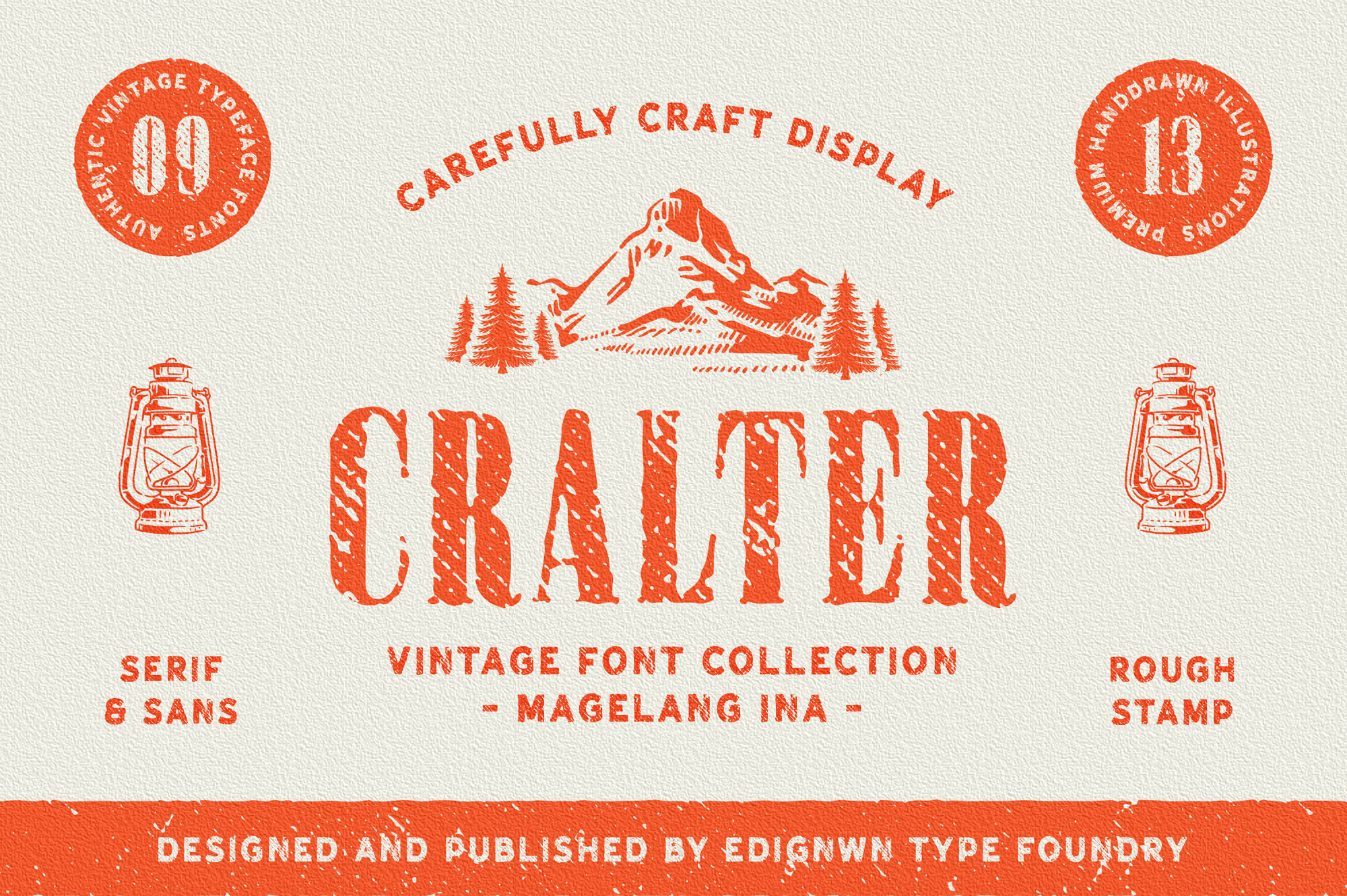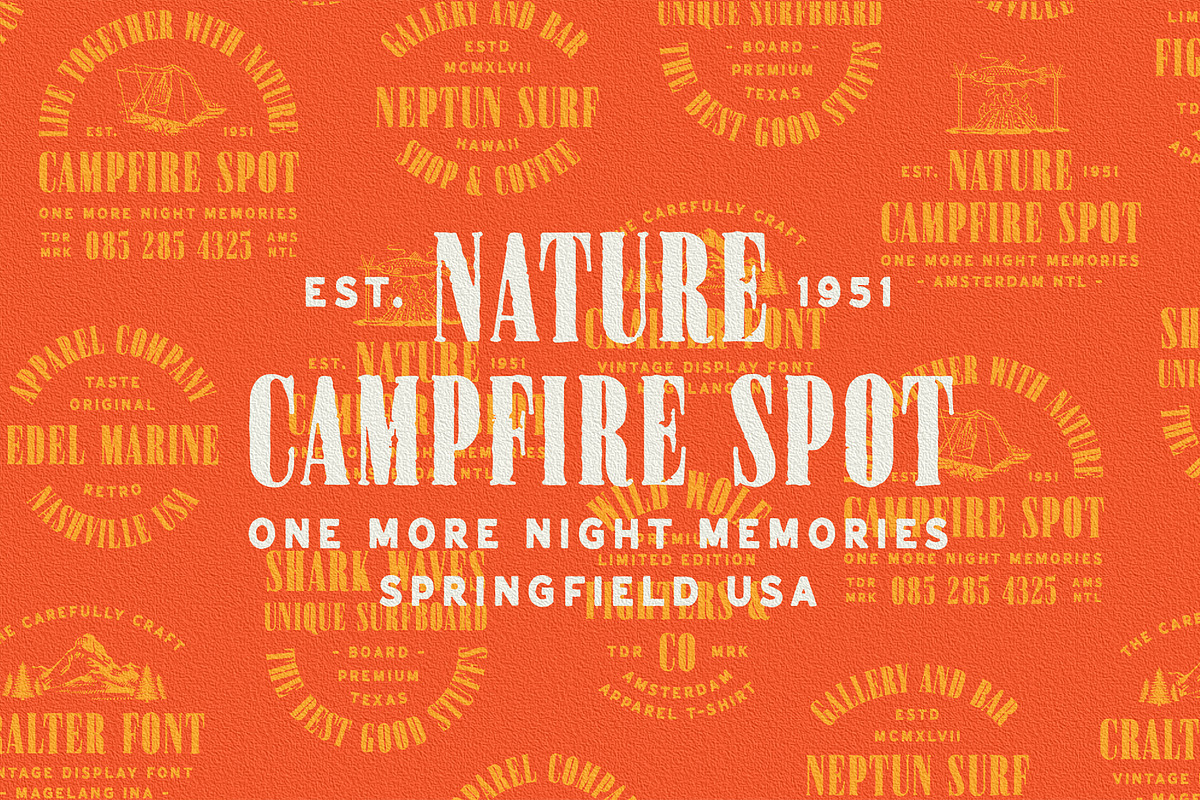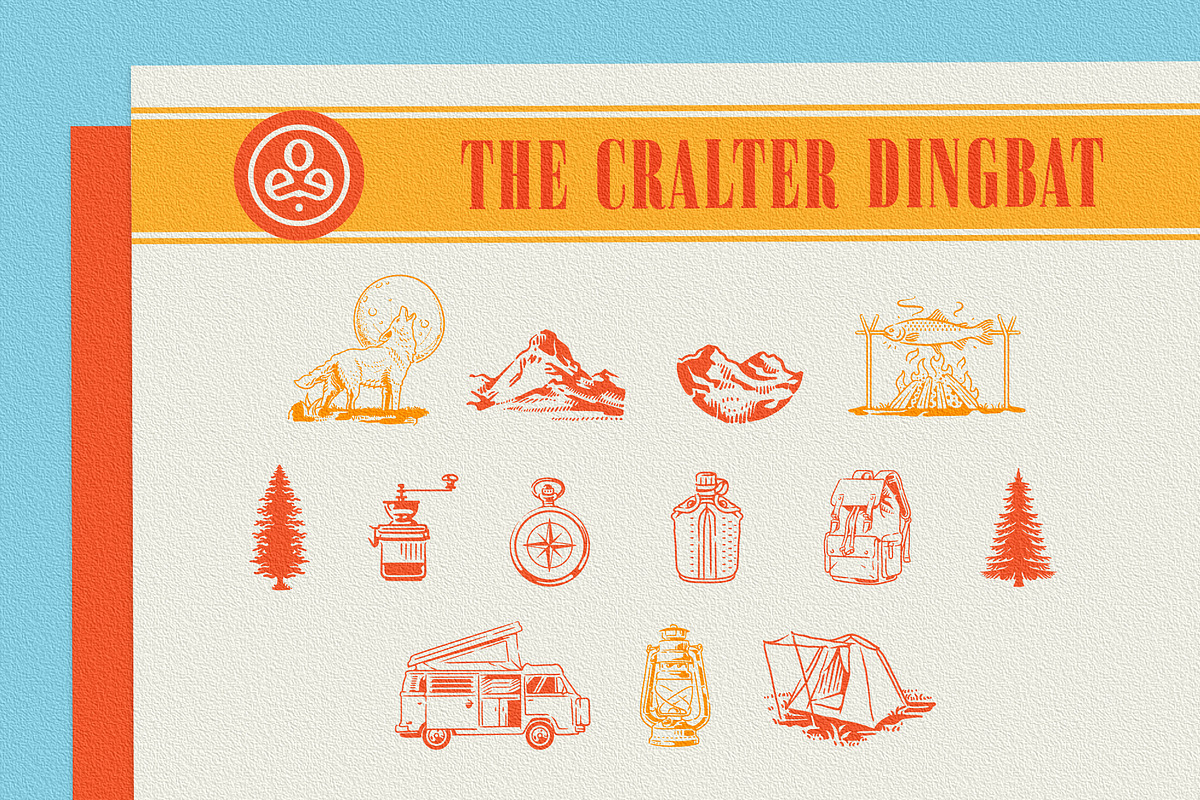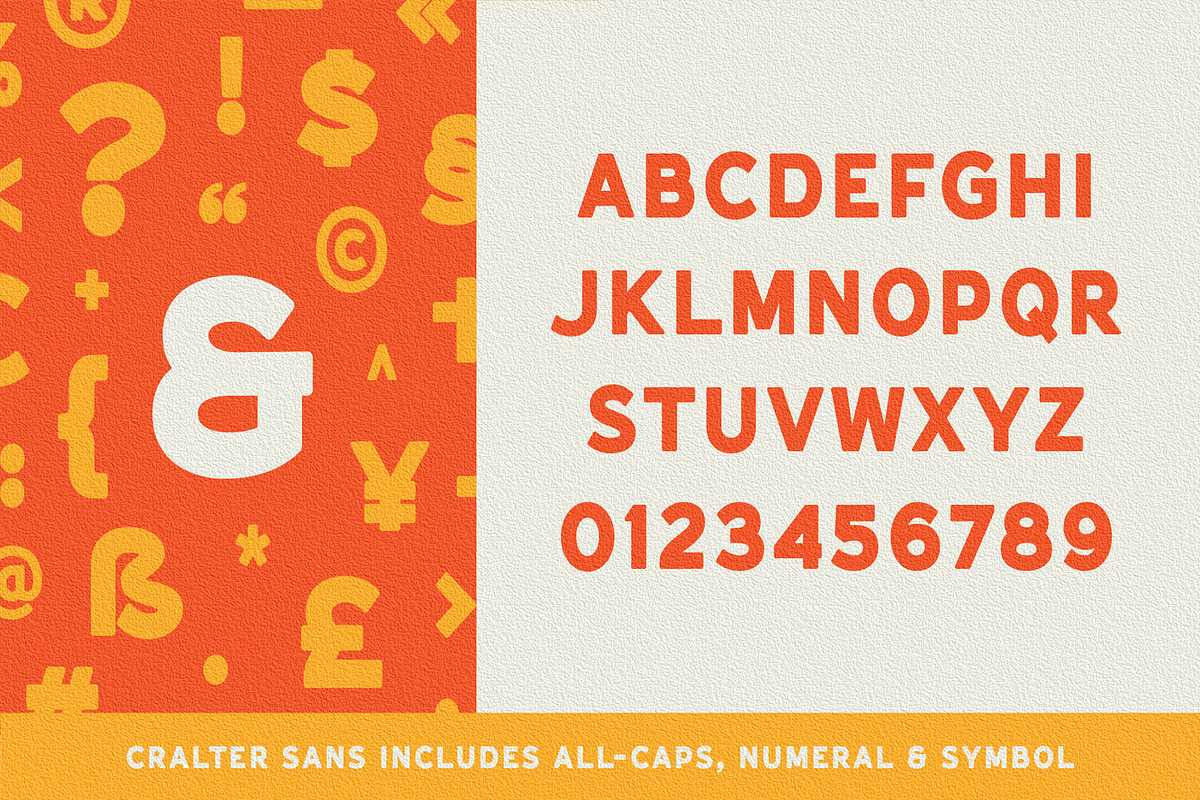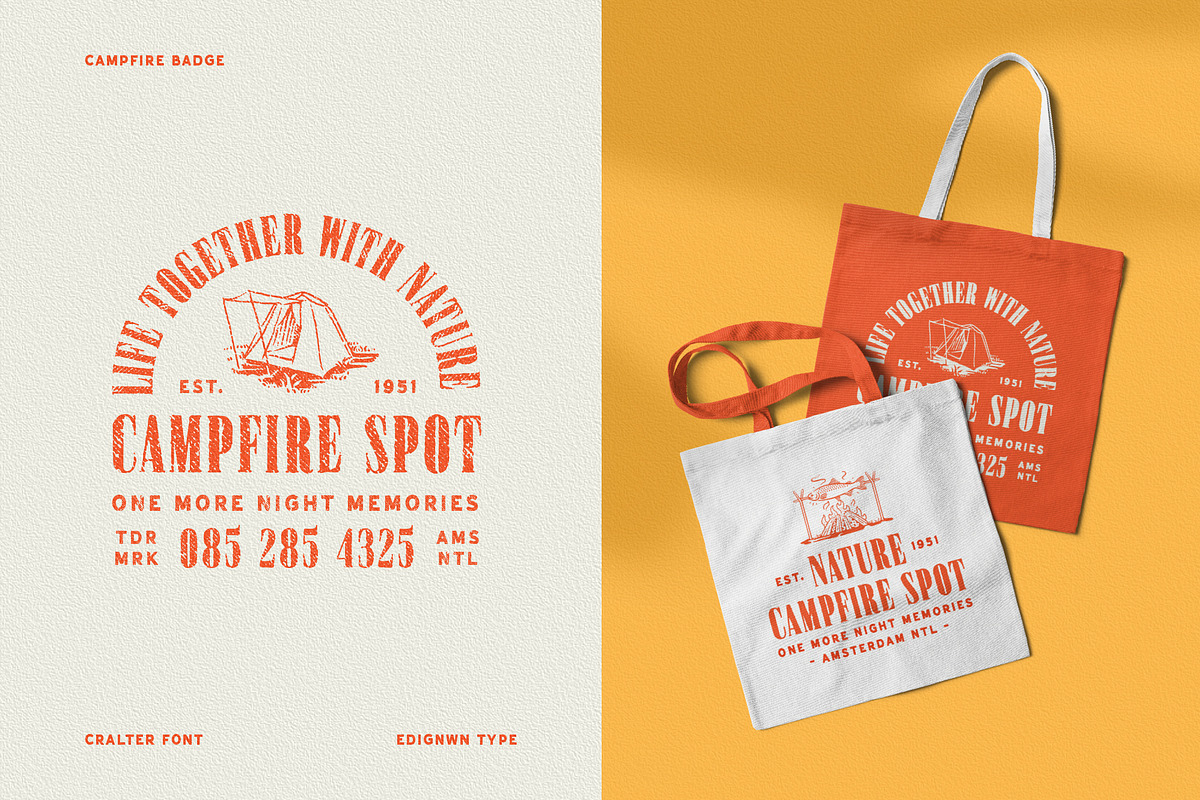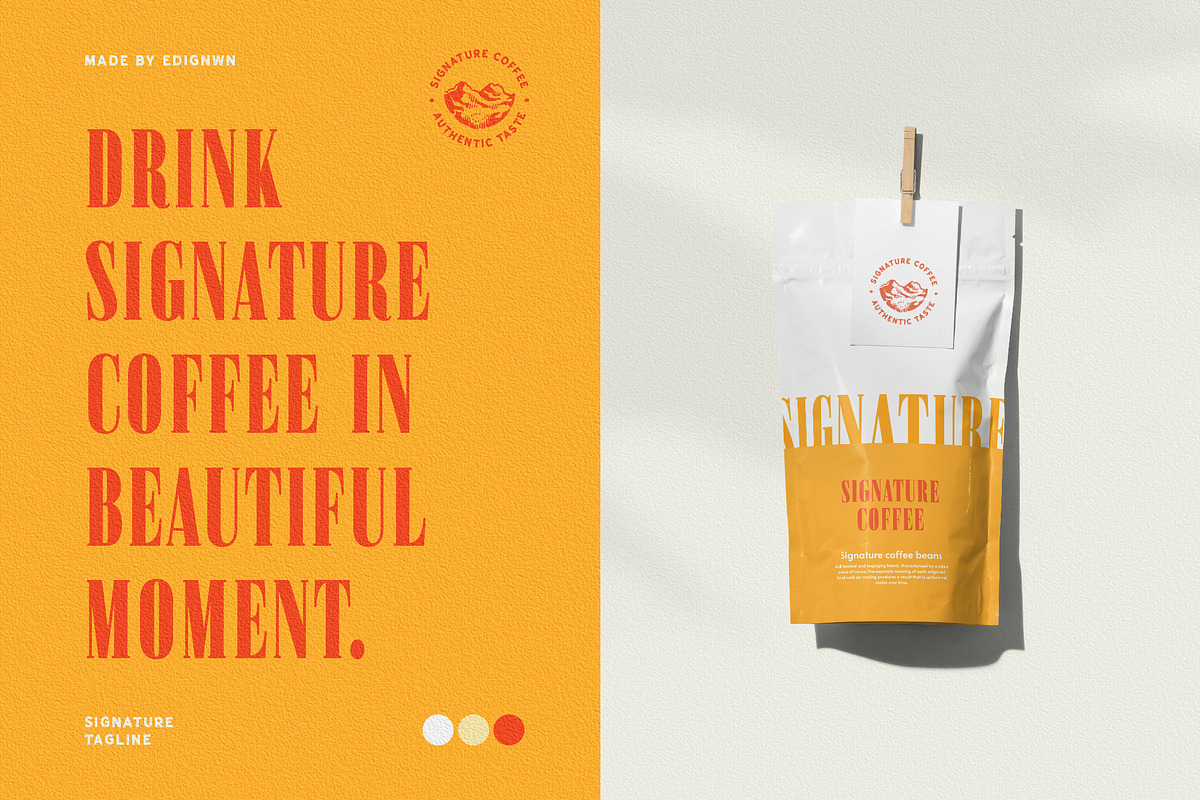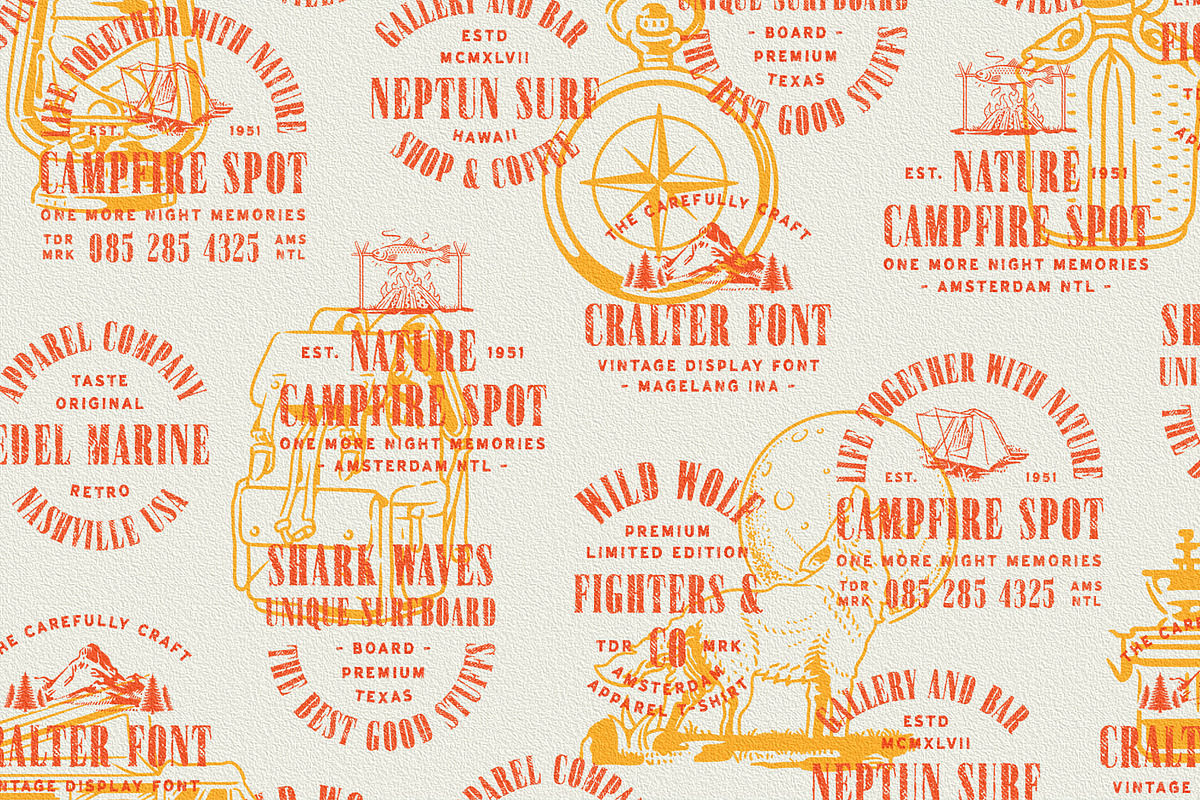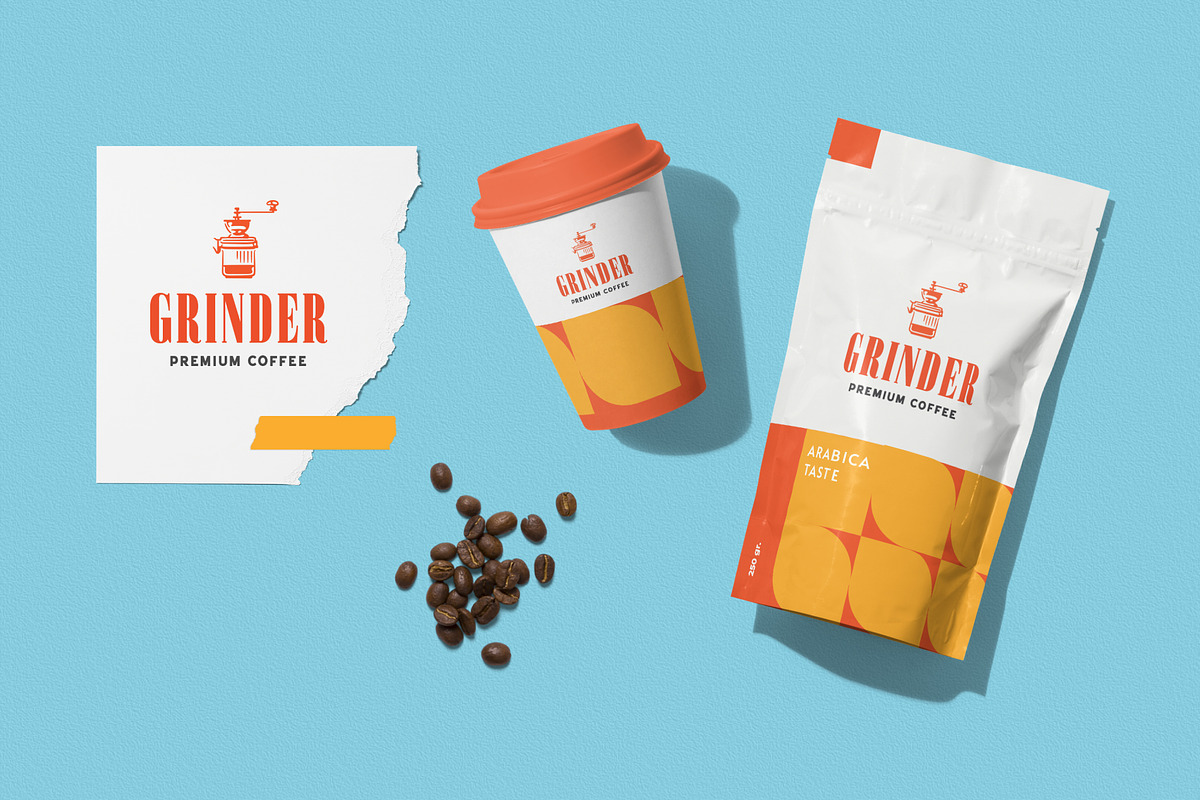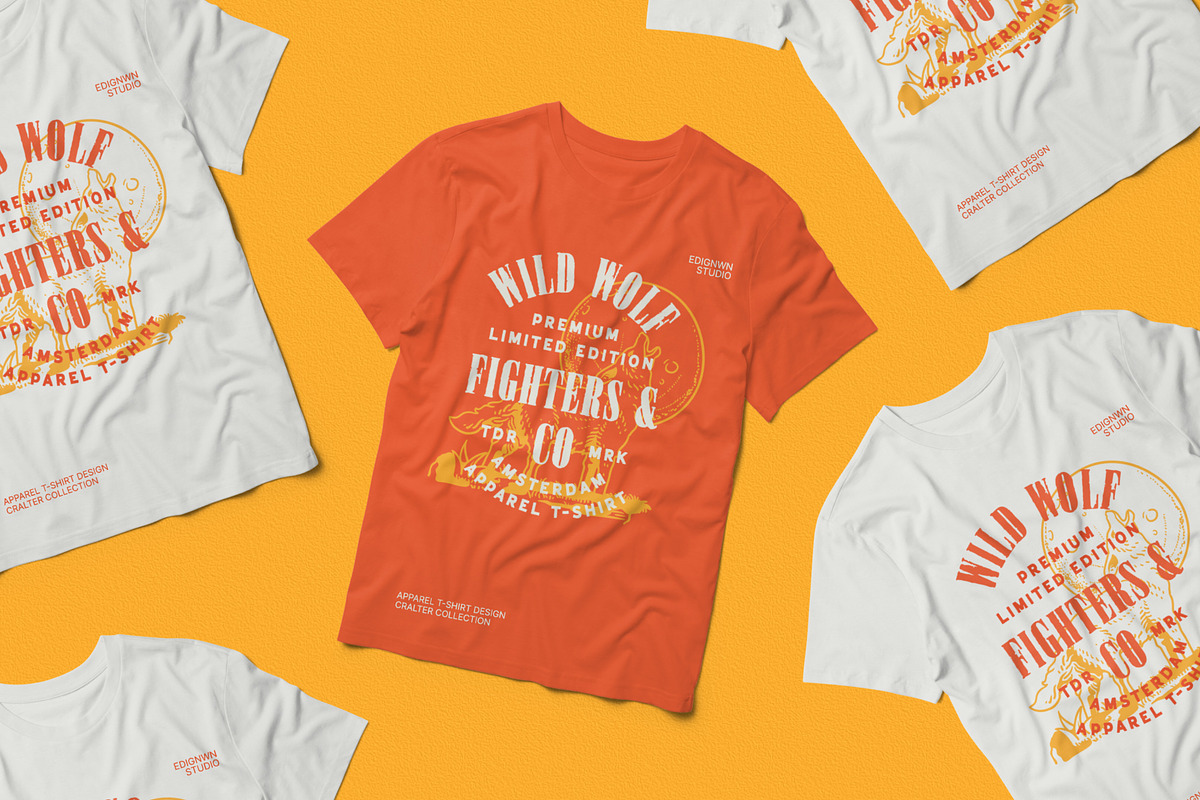
Cralter - Display Font
The Cralter Font is inspired by authentic typefaces in old posters. These font collections contain serif and sans serif fonts. Every font comes with 4 style typefaces (regular, rounded, rough and stamp). Cralter gives more extras 1 pack illustrations. The Cralter matches apply in some designs such as the logo, poster, label, badge, packaging, t-shirt, branding, quotes and more custom design.
Cralter features :
- 4 style typefaces (regular, rounded, rough and stamp)
- All-caps, numeral, symbol and punctuation
- 9 fonts (serif, sans serif and dingbat)
- 13 hand-drawn illustrations in dingbat